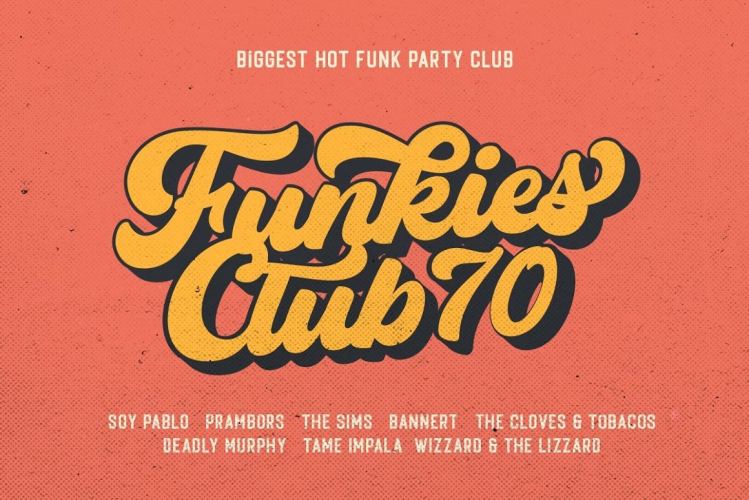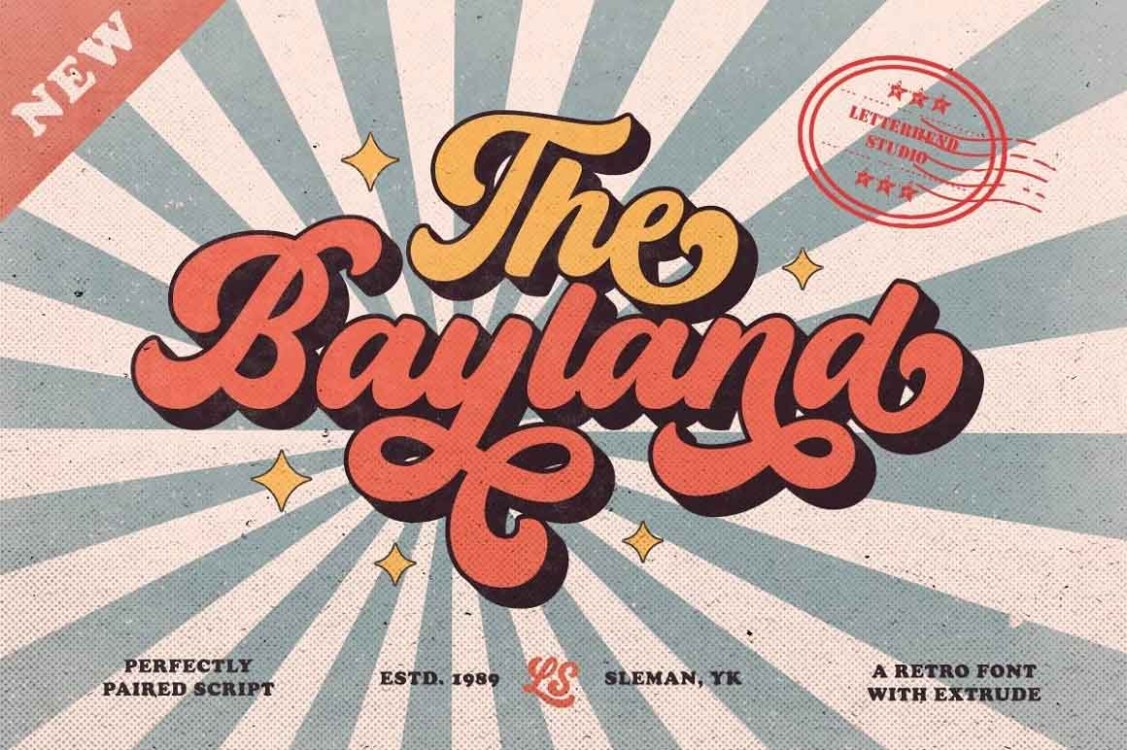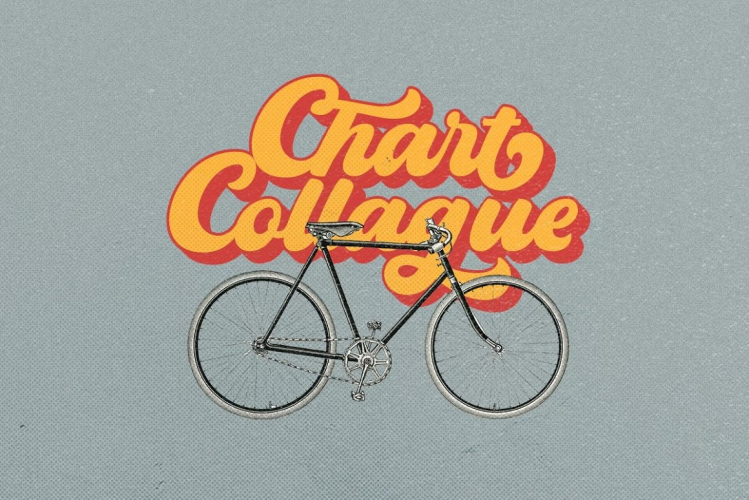
The Bayland Font
Introducing, The Bayland. A retro bold script which will bring you back to 60s feel. This typeface has the extrude version so you can create your retro effect font in ease. This font perfectly made to be applied especially in logo, and the other various formal forms such as invitations, labels, logos, magazines, books, greeting / wedding cards, packaging, fashion, make up, stationery, novels, labels or any type of advertising purpose.
Where The Bayland Font works best
The Bayland Font brings a personal, handwritten warmth to invitations, menus and place cards.
Craft brands — coffee, cosmetics, bakery — use scripts like The Bayland Font for signature-style logos and labels.
Pair The Bayland Font with a plain sans for quotes, stories and Pinterest pins that feel handmade.
What is The Bayland Font good for?
The Bayland Font is a Script And Handwritten typeface tagged Bold, Branding, Editorial, Packaging. It works well for headlines, logos, posters, social media graphics and branding projects that need a distinctive script and handwritten look.